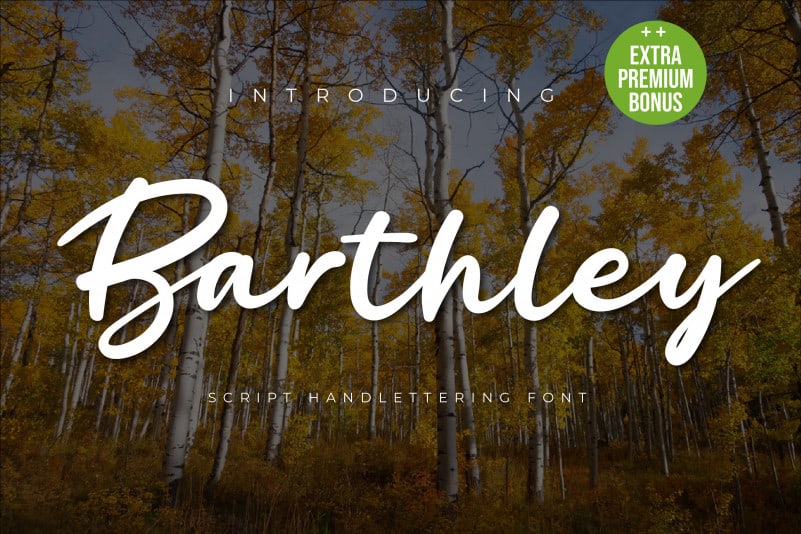
Barthley Script Font
Barthley Script Font is a sweet and casual script with an editorial twist. Use it to add an authentic spark to any design project!